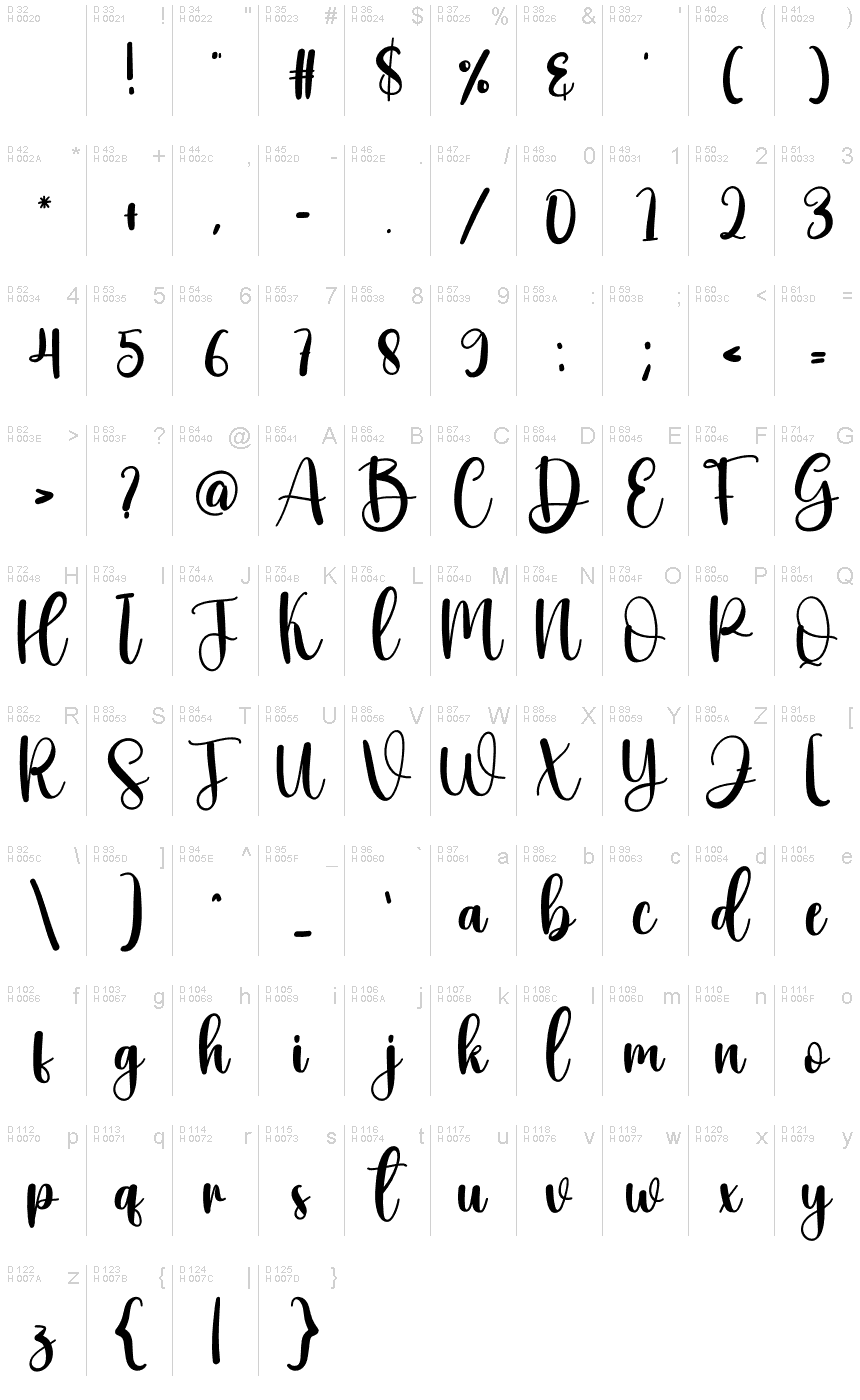
Hello Children, designed by Scratchones, offers a playful yet elegant touch to any creative endeavor. This semi-light calligraphy font captures the whimsical charm of handwritten notes, blending seamlessly into projects that require a personal, artisanal feel.
Its gentle curves and flowing lines evoke a sense of warmth and nostalgia, making it an ideal choice for invitations, greeting cards, and educational materials that aim to engage with a soft and approachable tone. The versatility of Hello Children lies in its ability to convey both simplicity and sophistication-a perfect marriage for designers looking to impart a friendly yet professional aesthetic.
The latest style letters are perfect for wall displays, wedding invitations, social media post logos,
advertisements, product packaging, product designs, labels, photography, watermarks, invitations, stationery, and any project that requires taste handwriting.